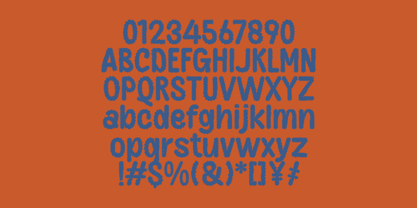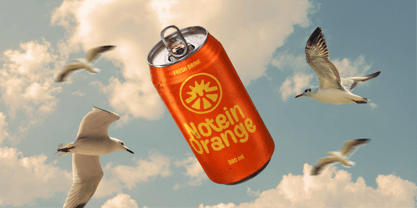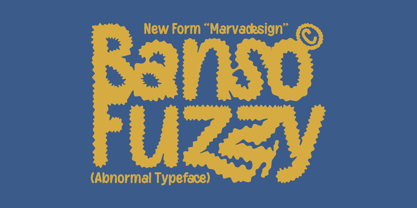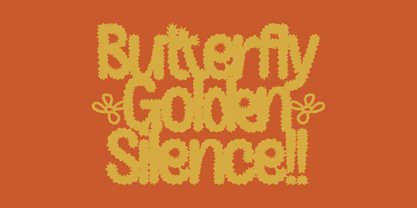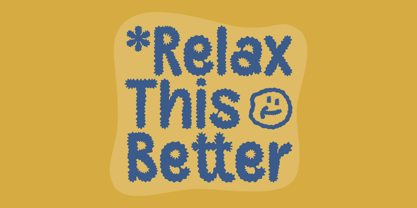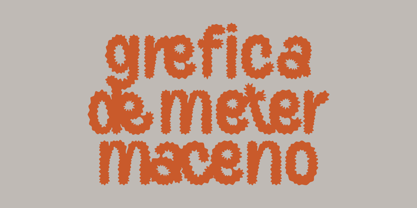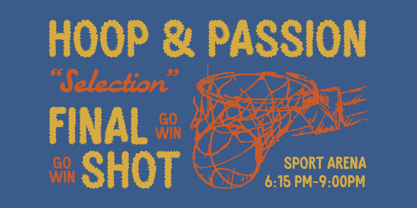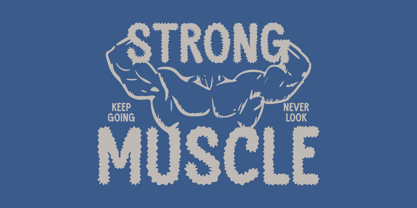
Banso Fuzzy
by Marvadesign
The Banso Fuzzy Font Family was designed by Febrie Setiawan and published by Marvadesign. Banso Fuzzy contains 1 styles. More about this family
Banso Fuzy is an experimental display typeface defined by its bold, inflated letterforms and irregular, fuzzy edges that create a playful yet slightly chaotic visual texture; the soft, organic contours combined with rough, spiky detailing give it a handcrafted and almost tactile feel, while its heavy weight and tight spacing enhance its strong visual impact and legibility at large sizes, making it especially effective for expressive headlines, posters, and branding that aim to convey energy, uniqueness, and a fun, unconventional personality.
Designers: Febrie Setiawan
Foundry: Marvadesign